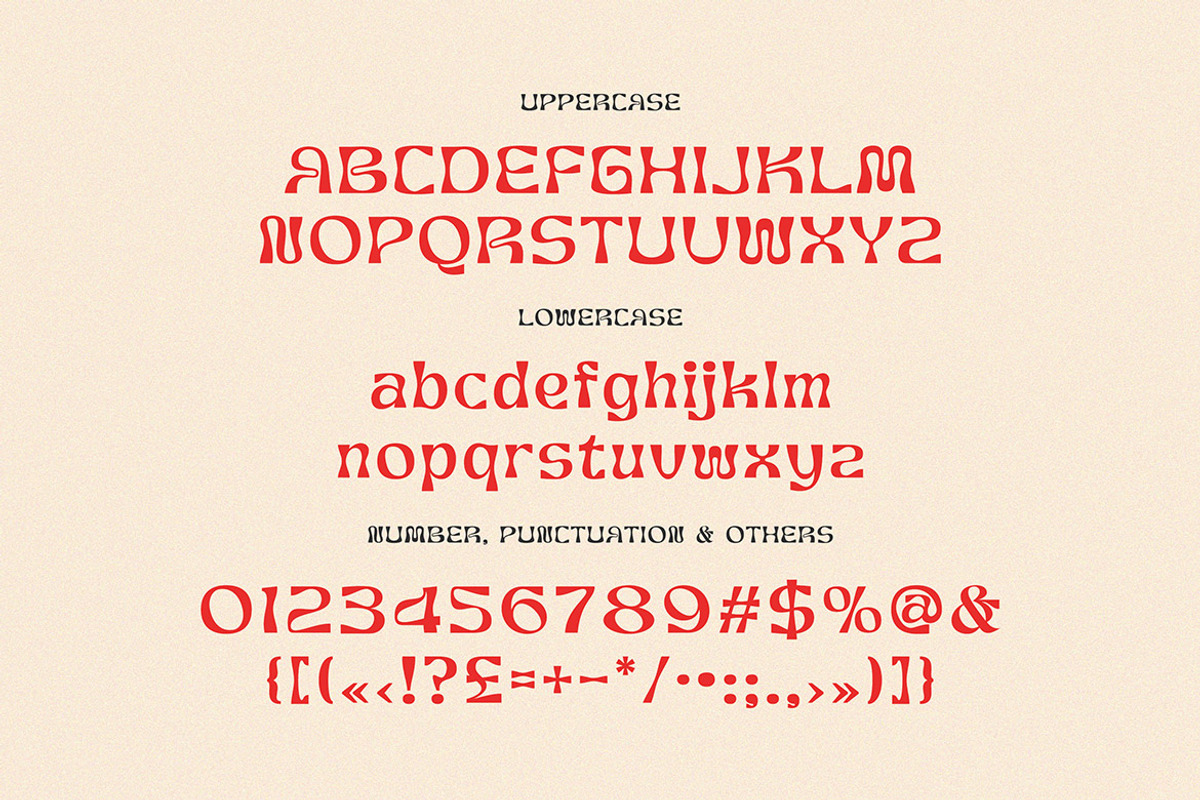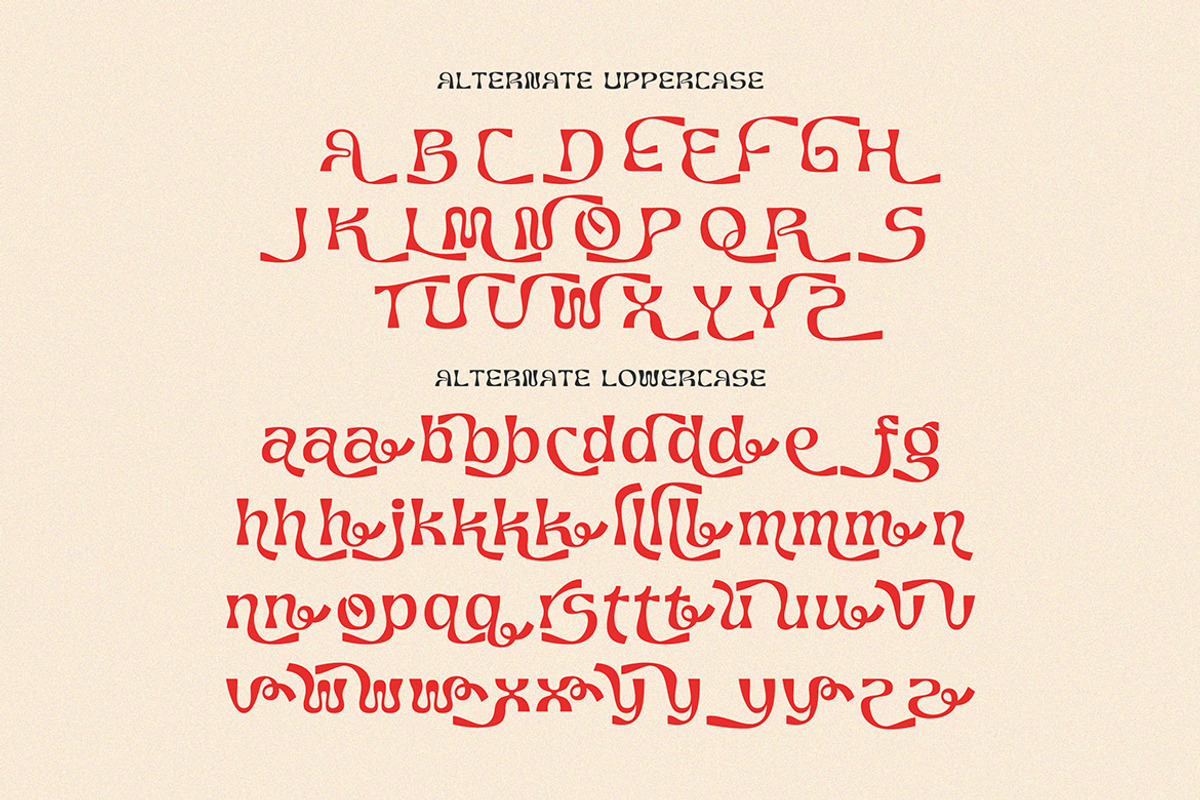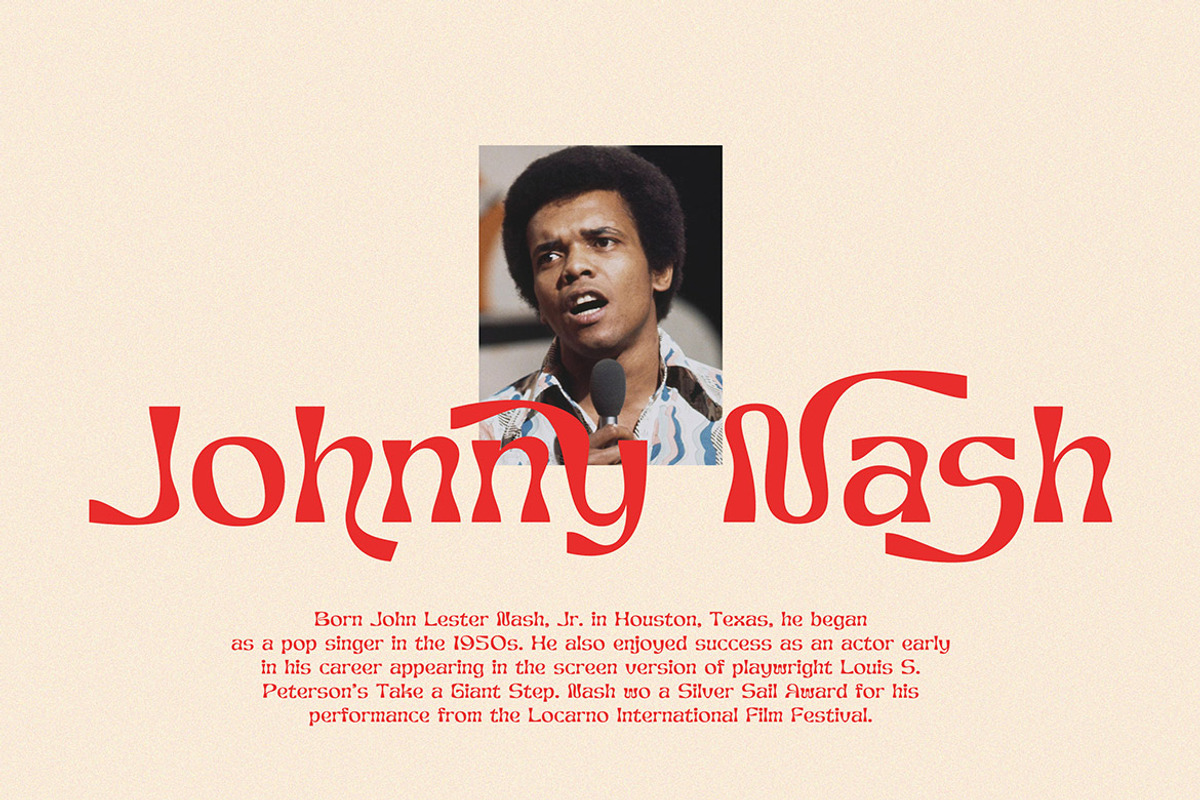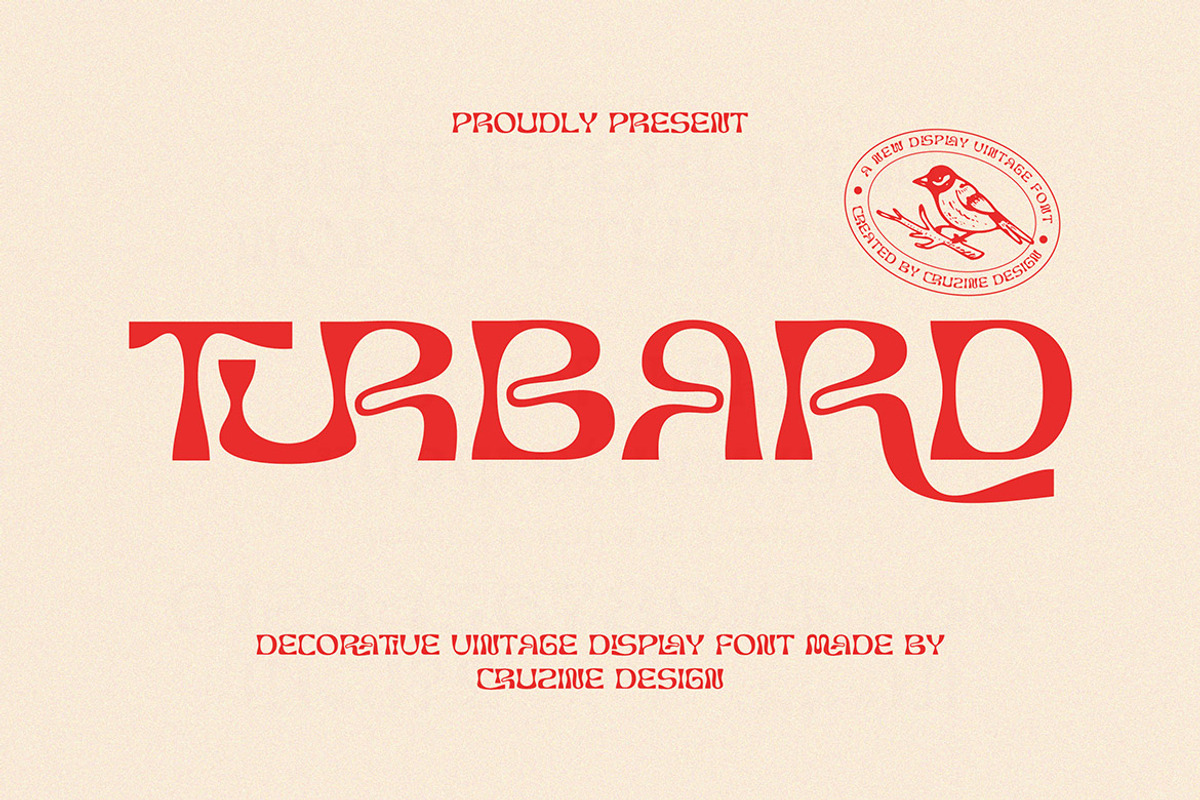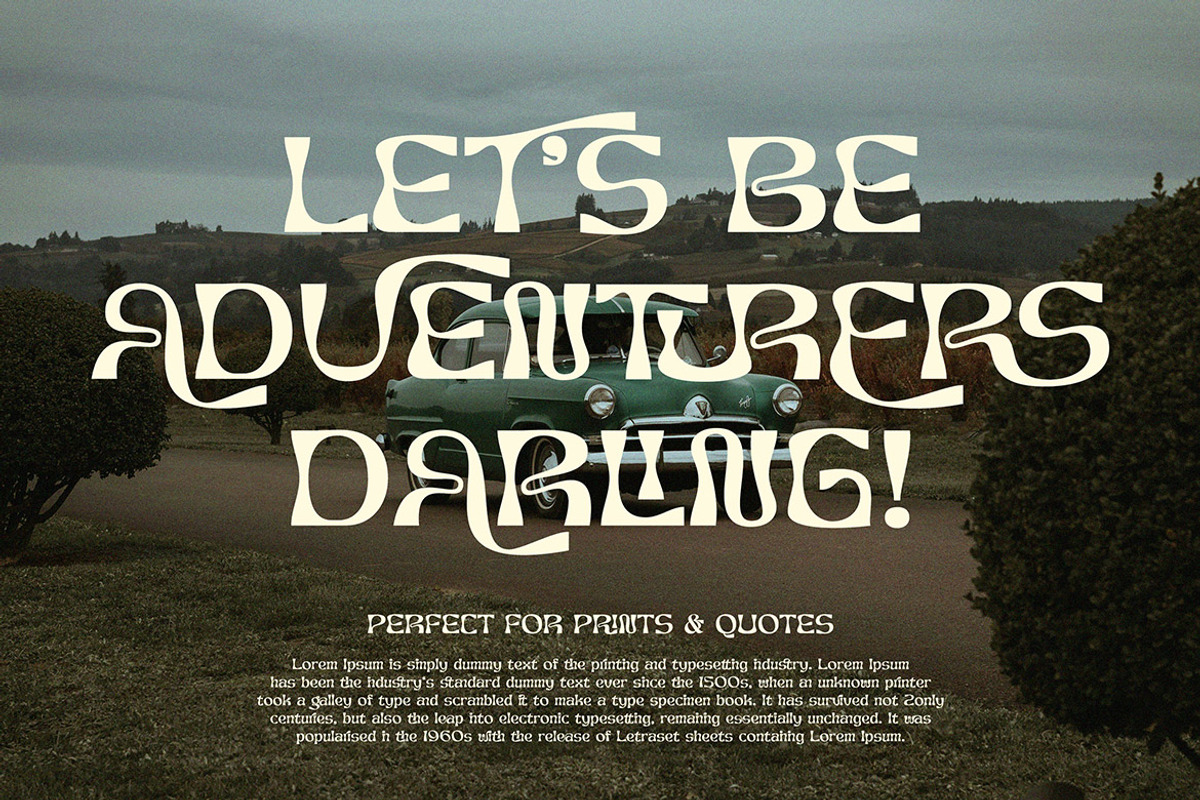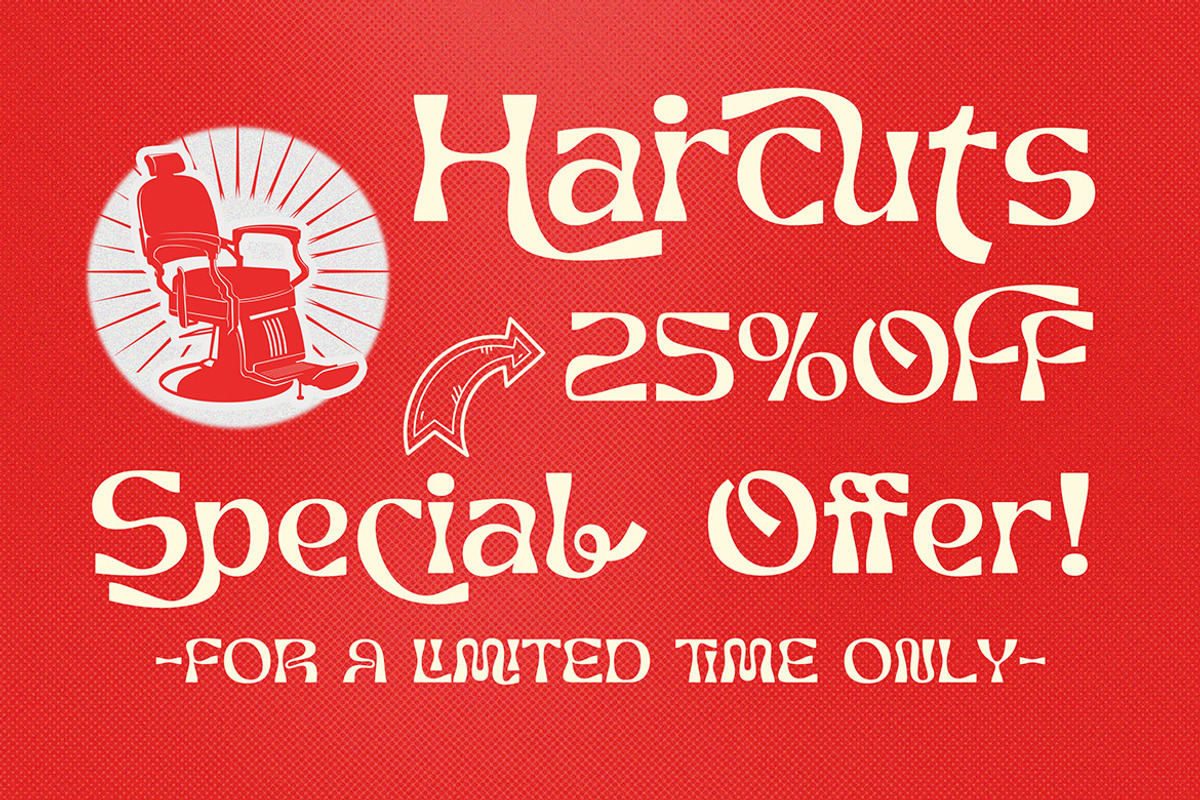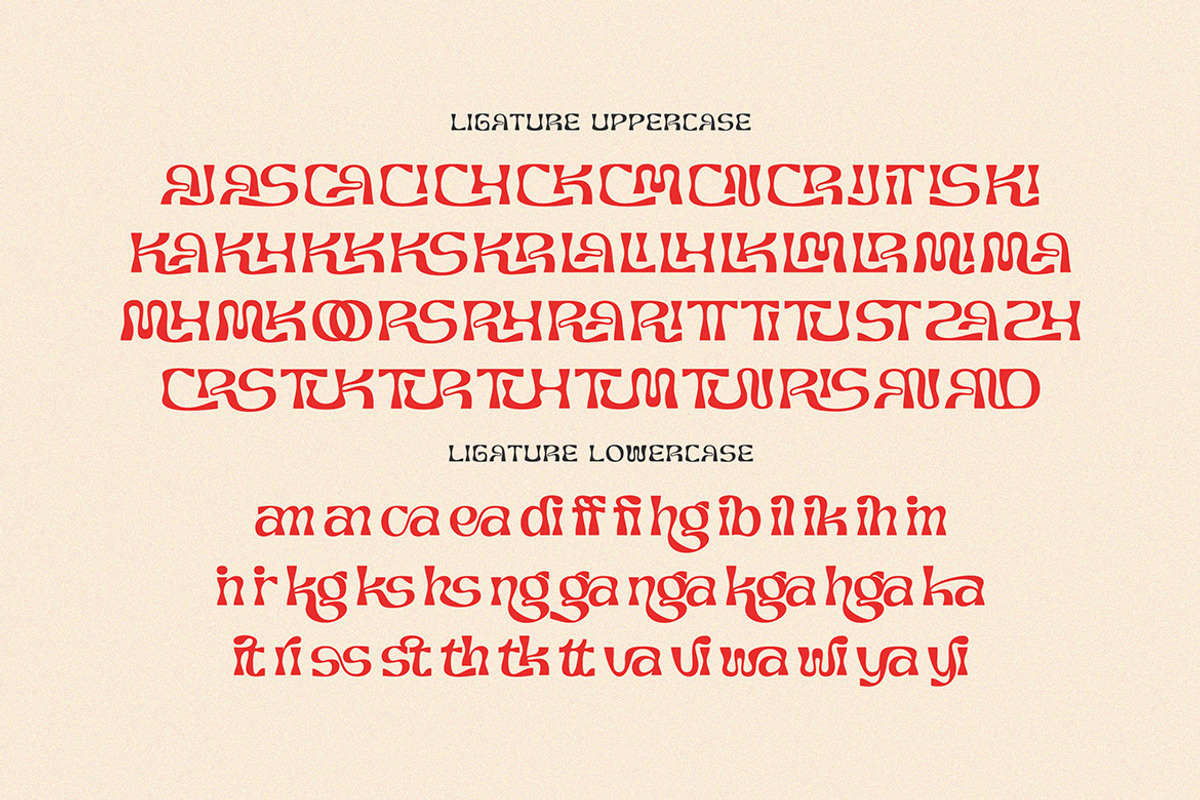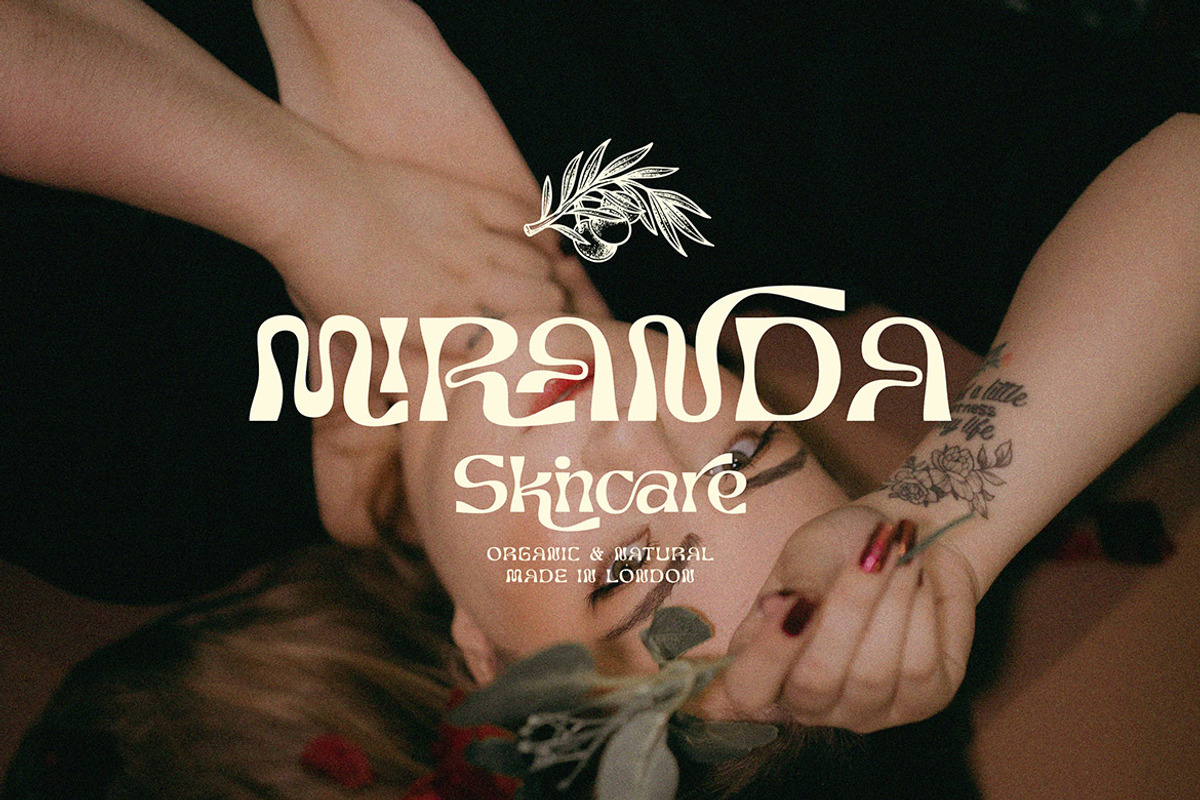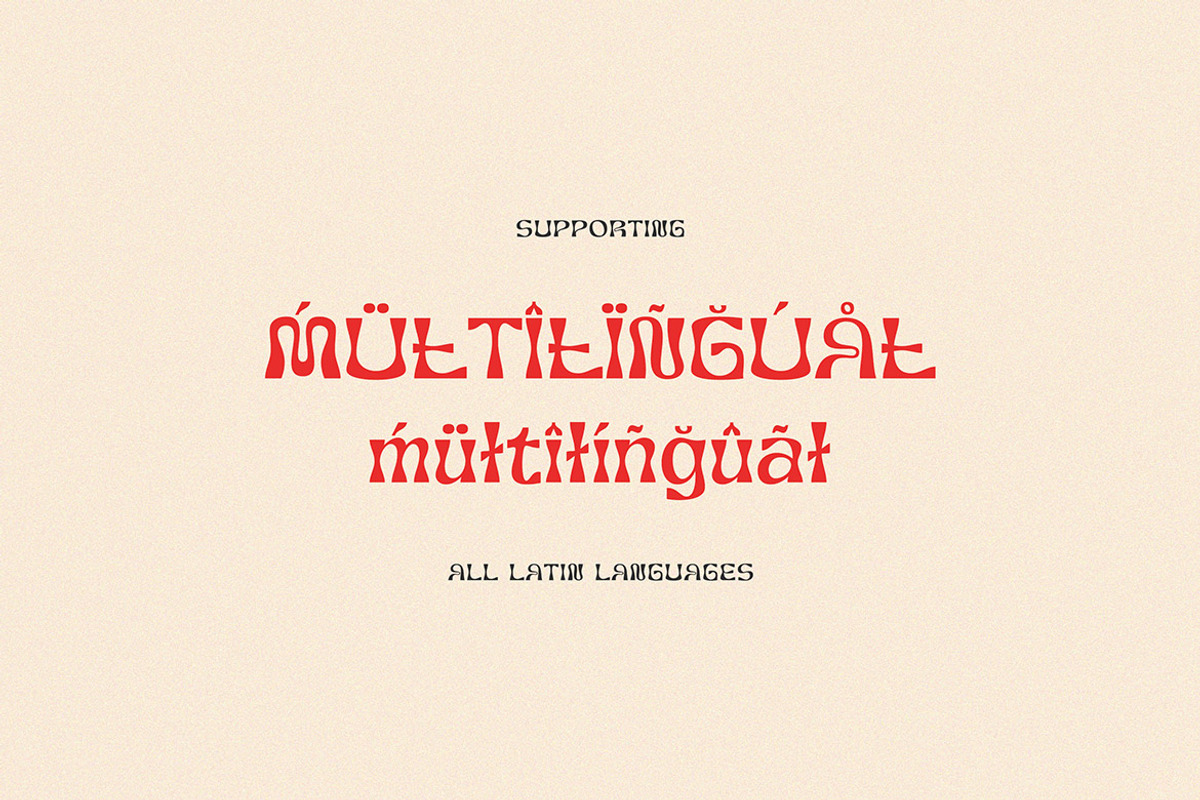
Turbard Modern Serif
Trendy, elegant, luxury, creative, sharp & modern style semi-serif font for your new fancy projects. Stylish, romantic and classic style on Turbard font will be great for any modern or classy branding project. Lot of alternates and ligatures will help you to create unique and original logo design or website header! Enjoy :)
- Alternate characters & lot of ligatures
- Great for modern branding projects!